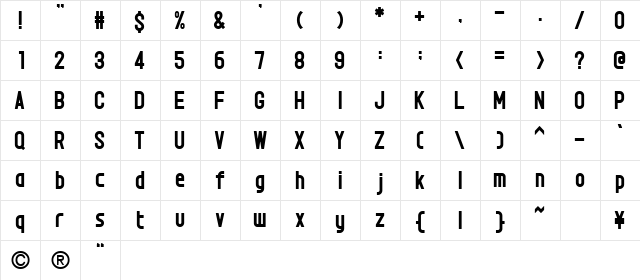
071MKSDBoldB Regular
Design Context for 071MKSDBoldB Typeface
071MKSDBoldB offers clean, dependable letterforms without strong stylistic allegiance, making it a practical choice for designers who need flexibility. Its bold stroke weight gives it real presence on the page.
Pro Tip: Use 071MKSDBoldB in both headline and body roles to test its range before committing to a single application.